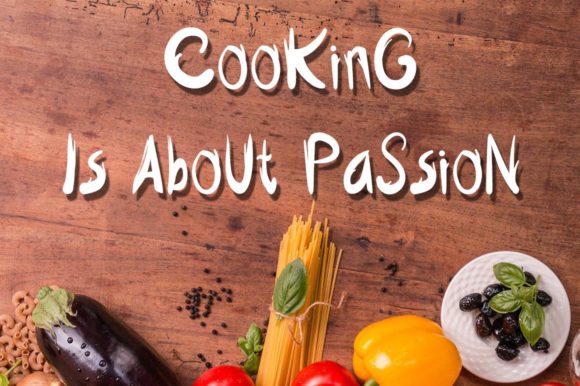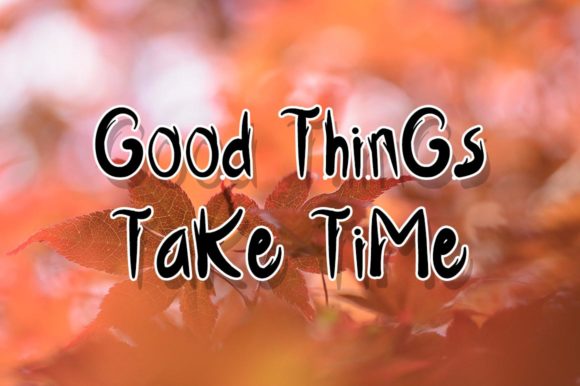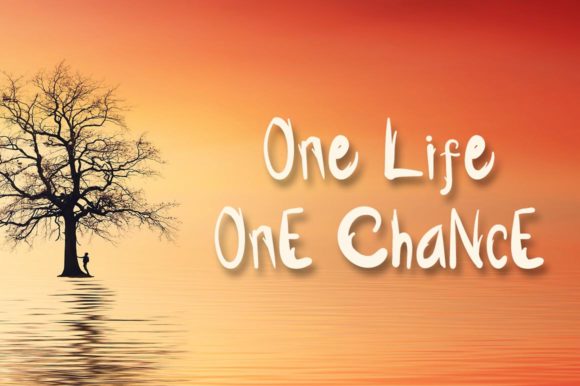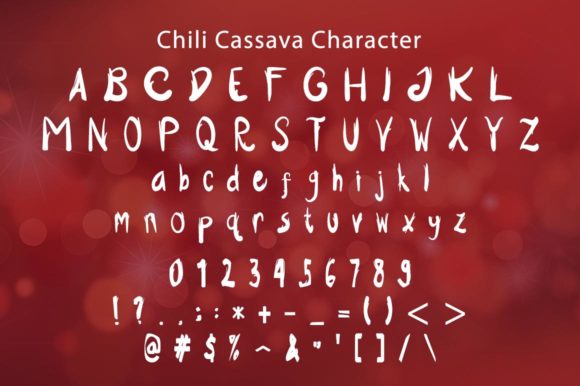
Unleash Your Creativity with Chili Cassava Font: A Unique Display Font for Artistic Projects
Are you a designer, crafter, or DIY enthusiast looking for a font that can add a touch of personality to your creative projects? Look no further than the Chili Cassava font! This incredibly unique and quirky display font is perfect for turning any creative idea into a true piece of art. In this article, we’ll explore the features and benefits of Chili Cassava font and how it can elevate your designs, Instagram posts, and DIY projects.
What is Chili Cassava Font?
Chili Cassava font is a display font that stands out from the crowd with its distinctive and playful style. Its unique lettering and quirky charm make it perfect for creative projects that require a touch of personality. Whether you’re designing a logo, creating social media graphics, or working on a DIY project, Chili Cassava font is sure to add a dash of excitement and energy to your work.
Key Features of Chili Cassava Font
- Unique and Quirky Style: Chili Cassava font boasts a one-of-a-kind design that’s sure to grab attention and make your projects stand out.
- Display Font: This font is specifically designed for display purposes, making it perfect for headlines, titles, and other prominent text elements.
- Hand-Drawn Lettering: The font features hand-drawn lettering, which gives it a personal and artistic touch.
- Multilingual Support: Chili Cassava font supports multiple languages, making it a great choice for global brands and projects.
Use Cases for Chili Cassava Font
Chili Cassava font is versatile and can be used in a variety of creative projects, including:
- Instagram Graphics: Add a touch of personality to your Instagram posts and stories with Chili Cassava font.
- DIY Projects: Use Chili Cassava font to create unique and eye-catching titles, labels, and signs for your DIY projects.
- Calligraphy Scripts: Combine Chili Cassava font with calligraphy scripts to create stunning and artistic pieces.
- Branding and Logo Design: Use Chili Cassava font to create a memorable and distinctive brand identity.
Benefits of Using Chili Cassava Font
So, why choose Chili Cassava font for your creative projects? Here are just a few benefits:
- Stand Out from the Crowd: Chili Cassava font is sure to grab attention and make your projects stand out from the crowd.
- Add a Touch of Personality: This font adds a dash of personality and whimsy to your designs, making them more engaging and memorable.
- High-Quality Design: The font is designed with high-quality and precision, ensuring that it looks great in any context.
Tips for Using Chili Cassava Font
To get the most out of Chili Cassava font, here are a few tips:
- Use it Sparingly: Because Chili Cassava font is so distinctive, it’s best to use it sparingly to avoid overwhelming your designs.
- Experiment with Colors: Try pairing Chili Cassava font with different colors and textures to add depth and interest to your designs.
- Combine with Other Fonts: Combine Chili Cassava font with other fonts to create a unique and visually appealing typography.
In conclusion, Chili Cassava font is an incredibly unique and quirky display font that’s perfect for designers, crafters, and DIY enthusiasts looking to add a touch of personality to their creative projects. With its distinctive style, hand-drawn lettering, and multilingual support, Chili Cassava font is sure to turn any creative idea into a true piece of art!